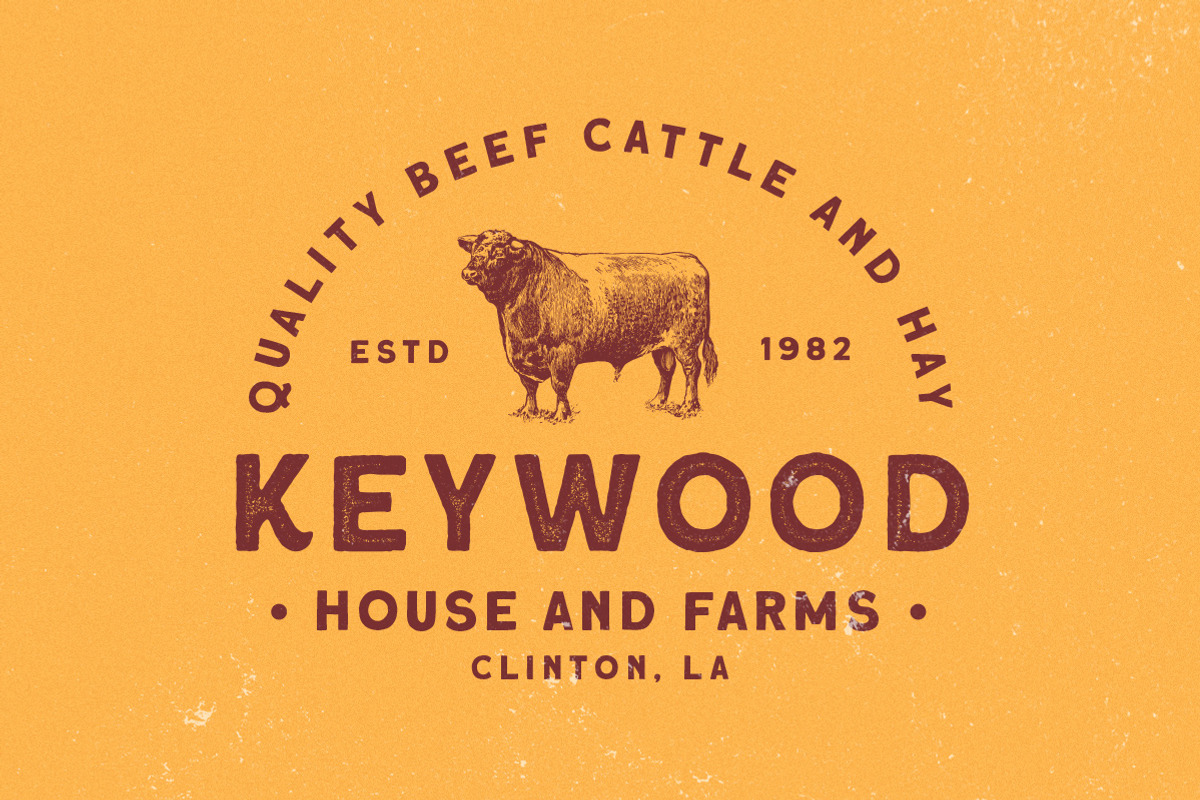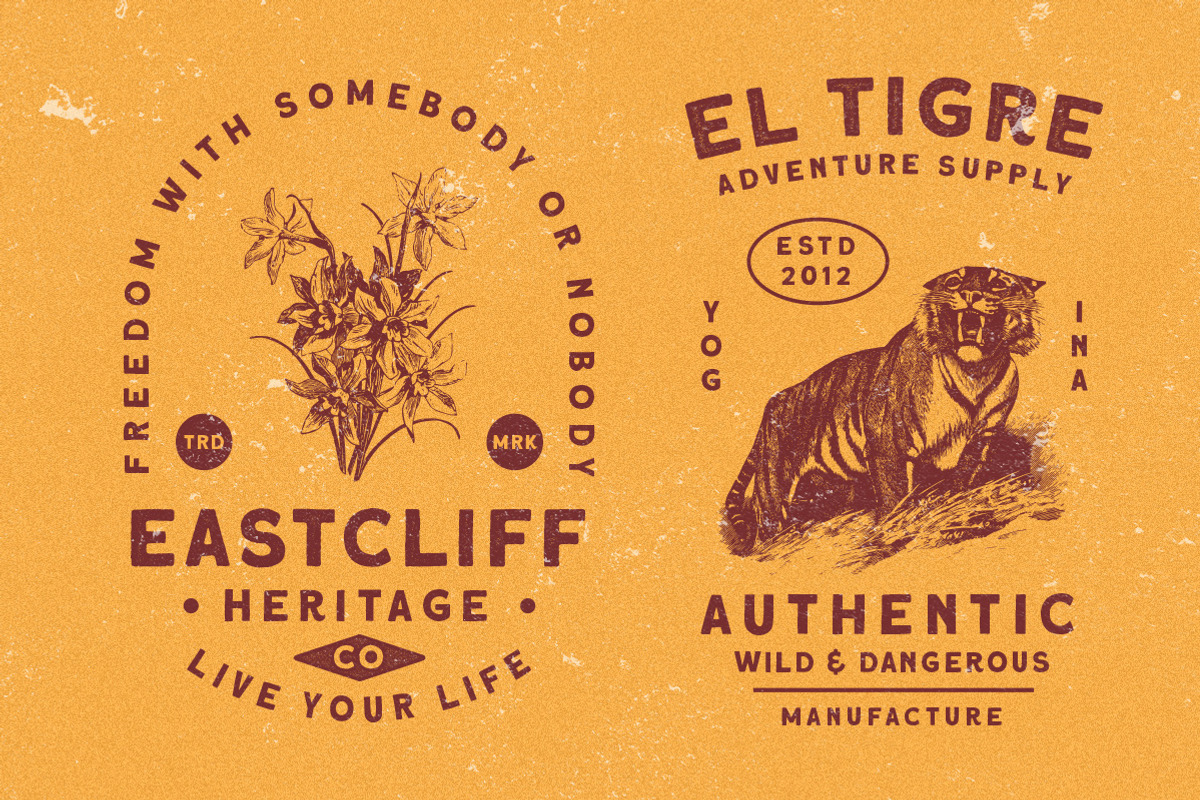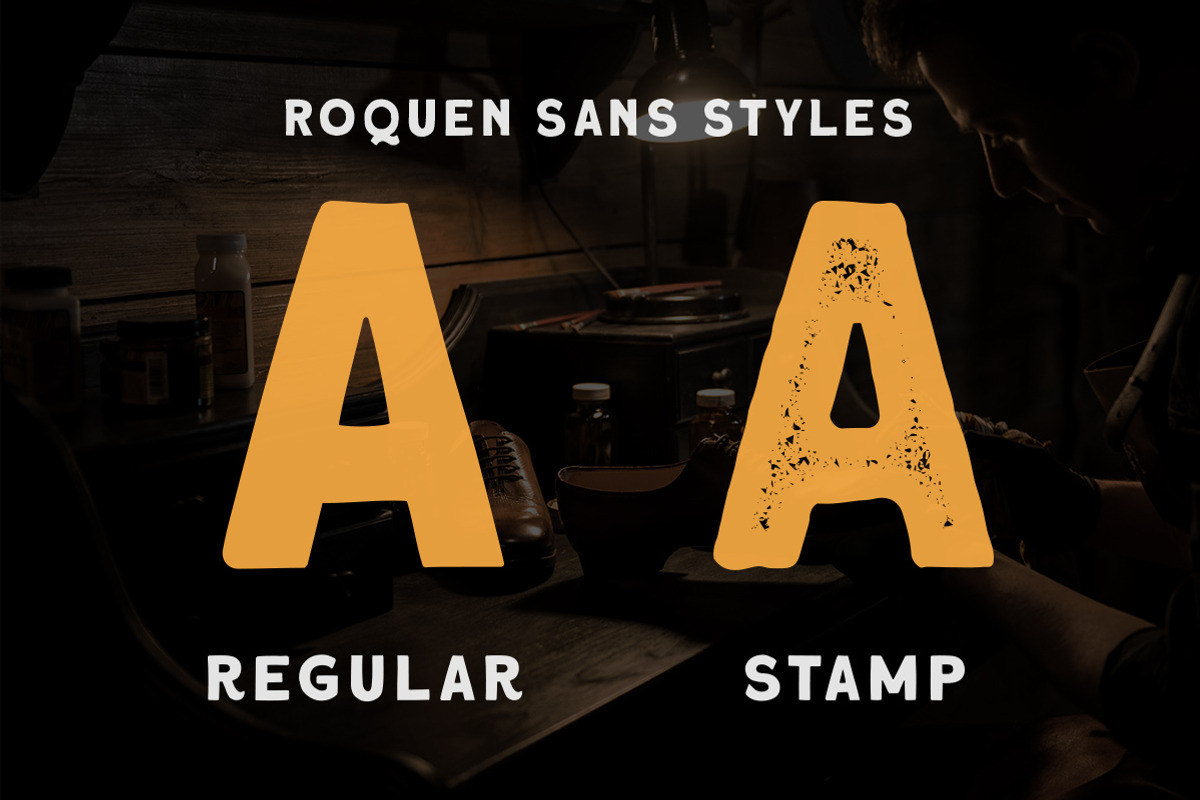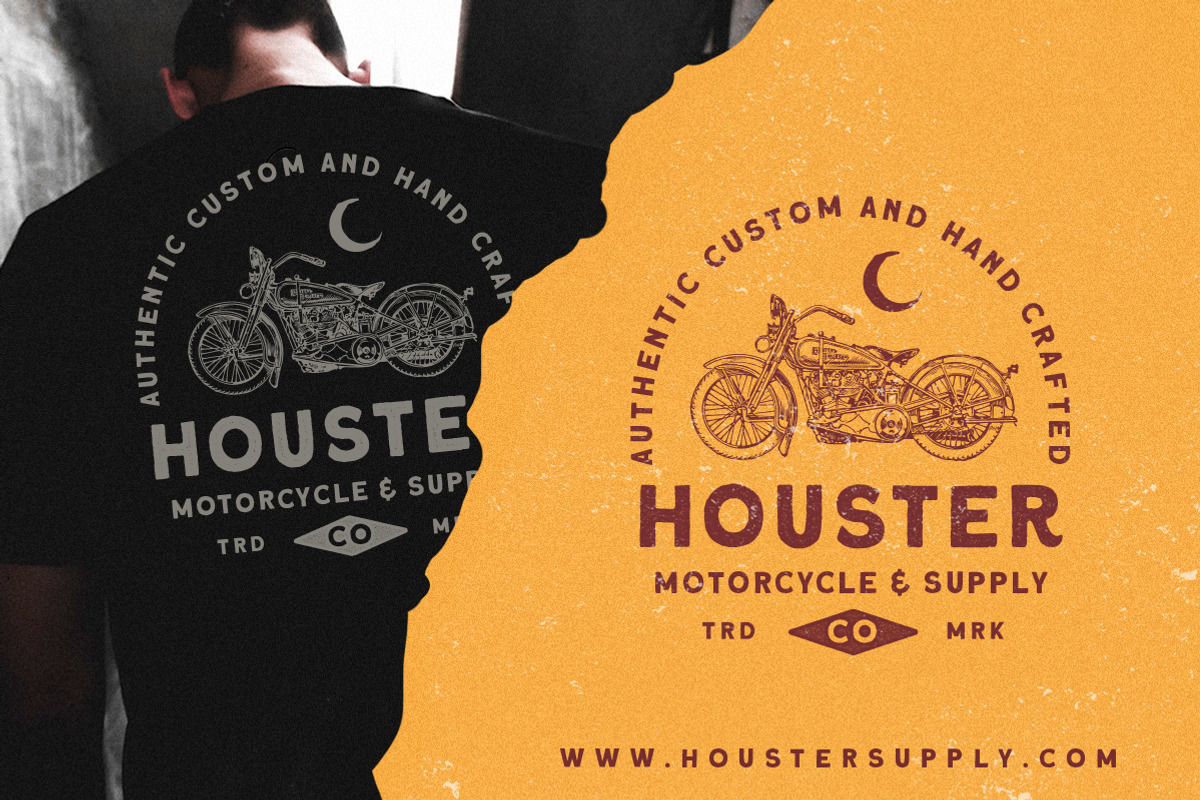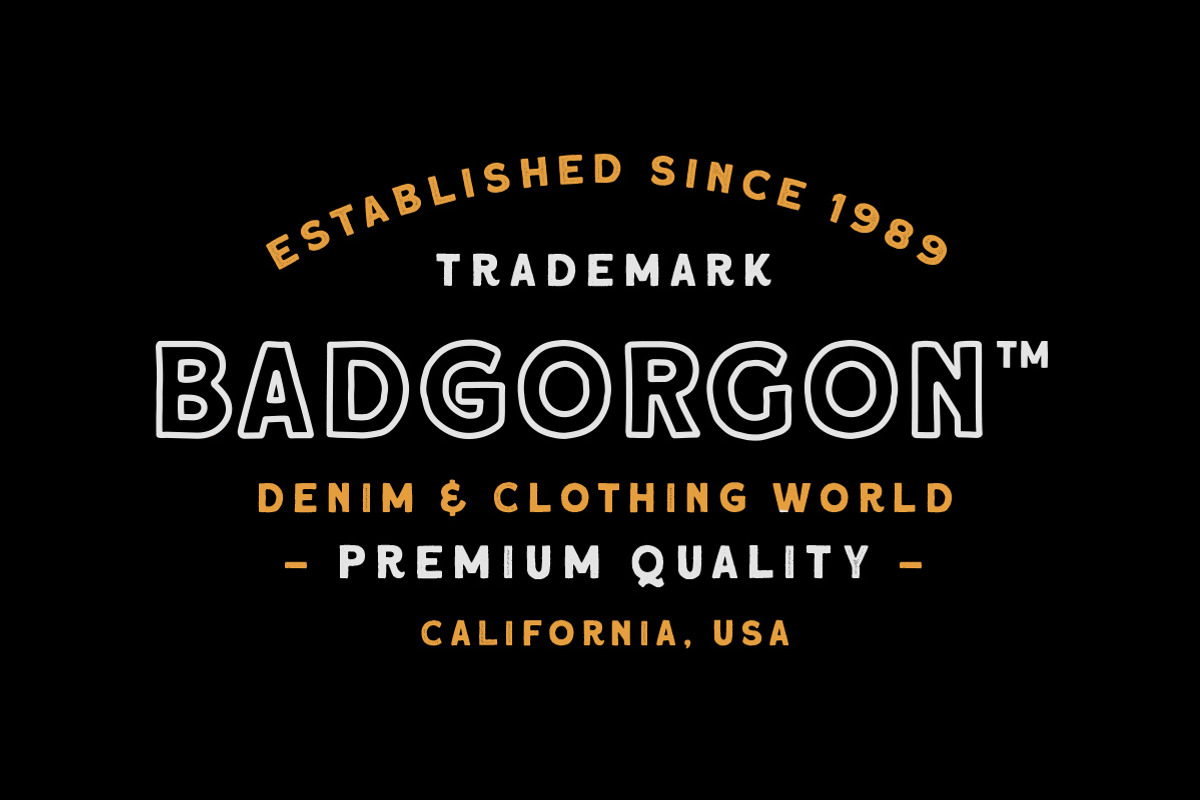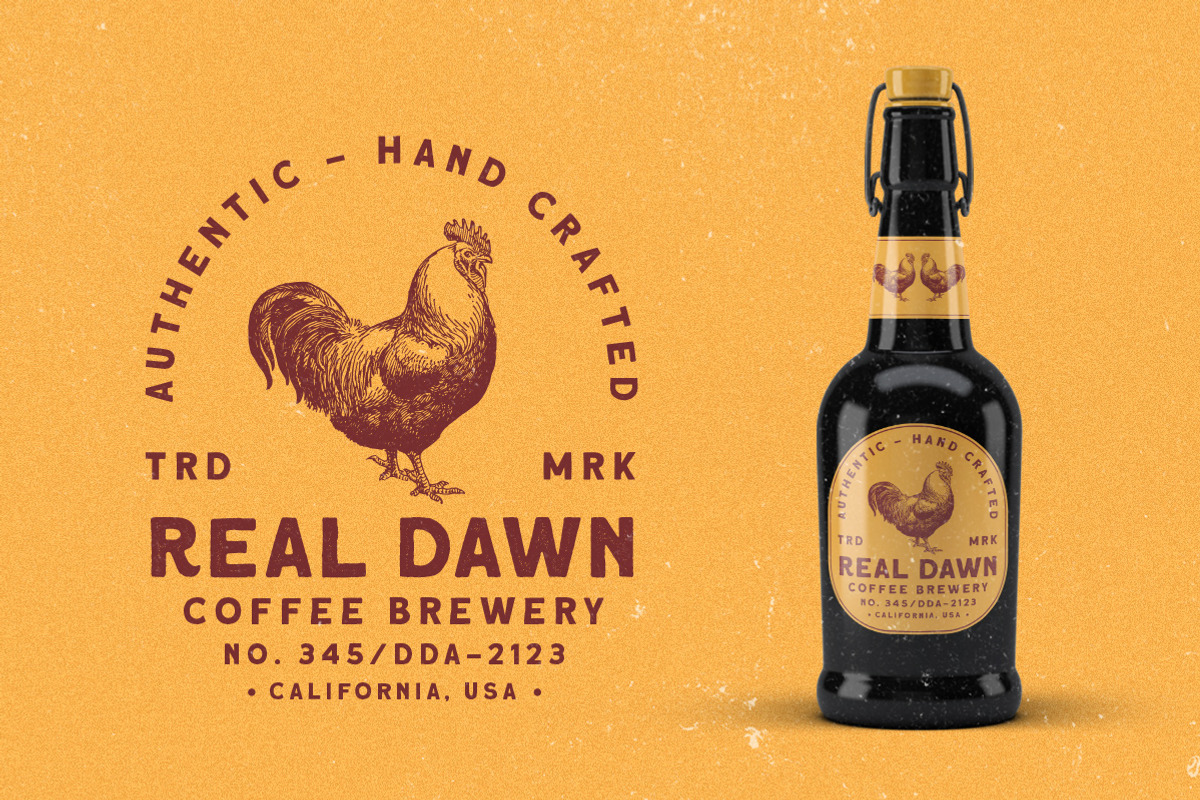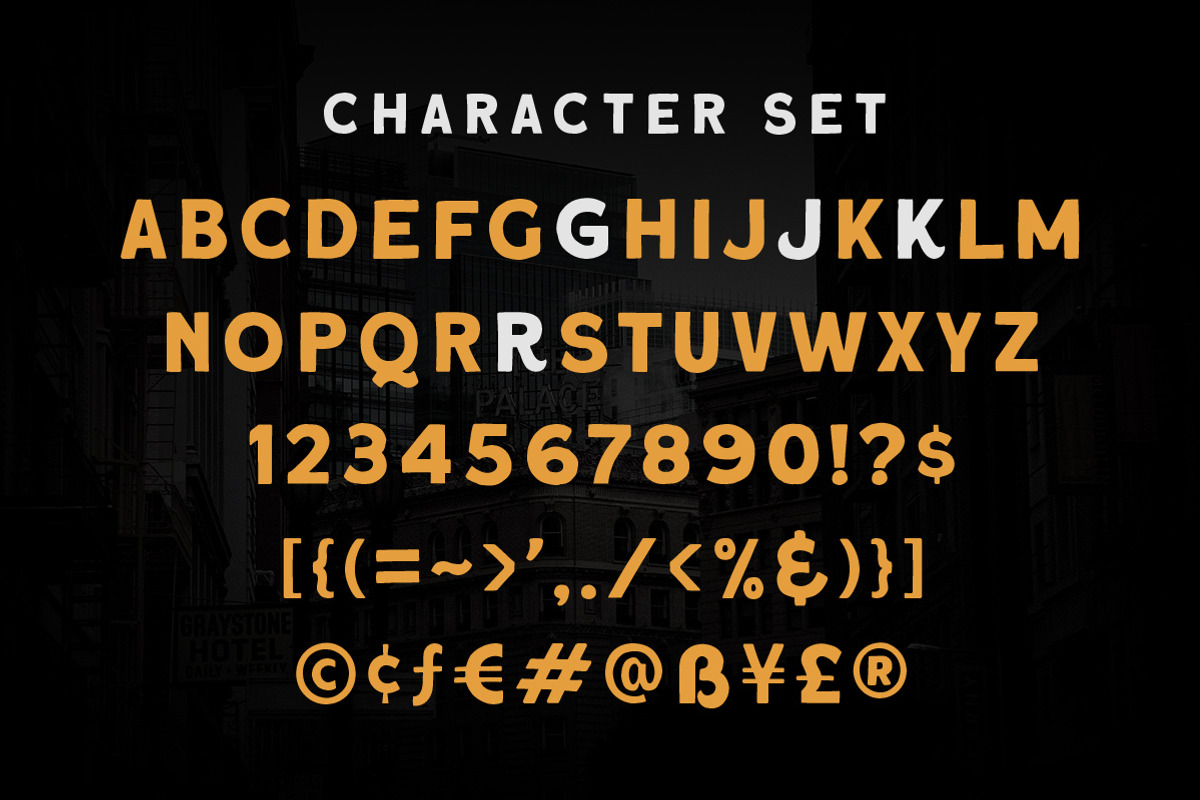
Roquen - A Hand Drawn Typeface
Meet, Roquen. A display typeface that made hand drawn! Bold, stands out, with rustic and nostalgic look! Works perfect for you who needs a typeface for headline, logotype, apparel, invitation, branding, packaging, advertising etc. This typeface is comes in uppercase, lowercase, punctuation, symbols, numerals, stylistic set alternate, ligatures, etc also support multilingual.
- Roquen Regular
- Roquen Stamp